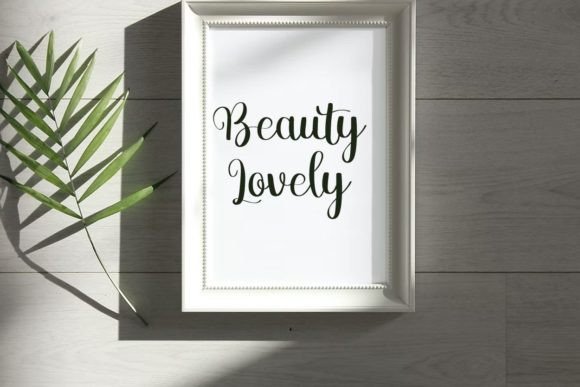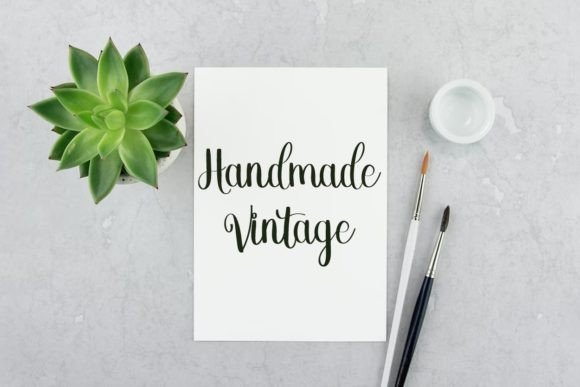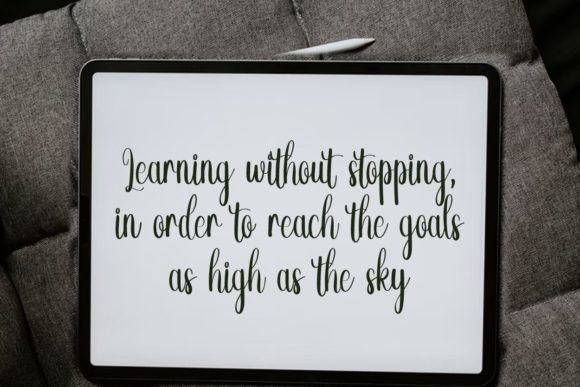
About Girly Font
“Girly Font: Fresh and Beautiful Typeface for Versatile Designs
Introducing Girly, a fresh and beautiful font designed to elevate your creative projects, from YouTube banners to logo mockups, wedding invitations, ID cards, flyers, crafts, and beyond. This versatile font not only enhances the visual appeal of your designs but also brings a sense of progress and development to your business. With its simple yet unique style, Girly becomes an invaluable asset for various design purposes.
Beyond being a font, Girly is a design tool that adds a touch of freshness and beauty to your projects. Its carefully crafted characters bring simplicity and uniqueness, making it an ideal choice for a wide range of design applications.
The versatility of Girly shines through in its ability to enhance the aesthetics of diverse projects. Whether you’re working on digital graphics or tangible items, Girly adapts effortlessly to elevate the visual appeal of your designs.
For YouTube banners and cover logo mockups, Girly becomes a distinctive choice, adding a fresh and unique vibe to your brand. The font’s simplicity and beauty contribute to a memorable and impactful visual presence.
In wedding invitations and ID cards, Girly brings a sense of elegance and charm, making your text visually appealing and engaging. The font’s fresh and beautiful design is perfect for creating invitations that stand out.
Girly’s versatility extends to various print materials, making it suitable for flyers, crafts, and more. The font’s unique character enhances the overall aesthetics, creating a visually pleasing experience.
In conclusion, Girly is more than just a font; it’s a design companion that brings fresh and beautiful typography to your creative toolkit. Let Girly be the brushstroke that enhances the beauty of your projects. Embrace the versatility and simple, unique charm of Girly, and watch as it transforms your ideas into visually enchanting experiences.”